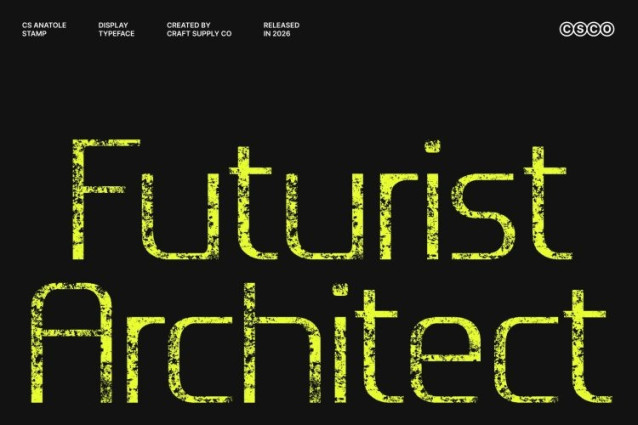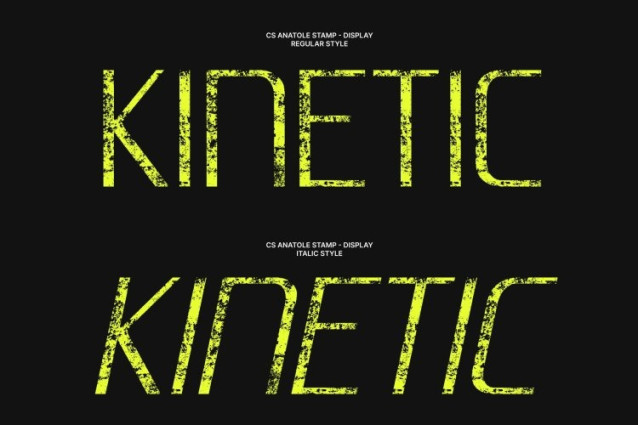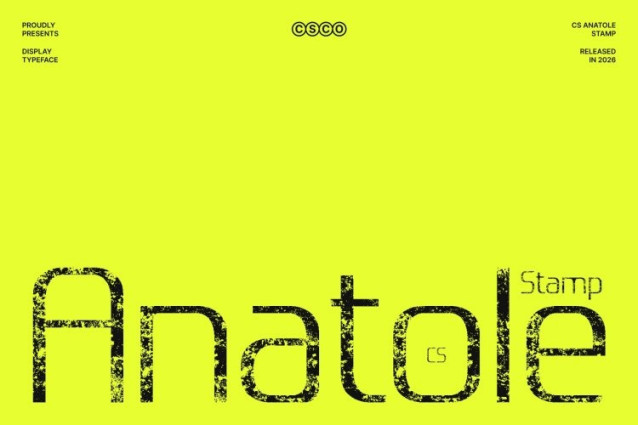
CS Anatole Stamp Font
CS Anatole Stamp Font This is a modern futuristic display font designed to command attention through sleek geometry and contemporary energy, enhanced by a distinctive stamp texture. Its clean sans serif structure reflects precision and progress, while the stamped finish introduces subtle vintage depth, adding warmth and expressive character to its high-tech aesthetic.
Sharp Geometry with Textured Refinement
Each letterform is crafted with balanced proportions, streamlined shapes, and confident spacing. The futuristic minimalism is enriched by a tactile stamp effect that softens the precision with artistic imperfection. This contrast creates a dynamic visual presence that feels both innovative and authentically crafted.
Bold Impact with Industrial Edge
Perfect for logos, posters, headlines, and strong brand statements, this font delivers a confident and forward-looking identity. The fusion of clean structure and textured detail ensures your designs feel striking, modern, and visually layered rather than flat or sterile.
Versatile for Modern and Experimental Design
From tech branding and digital interfaces to editorial layouts and conceptual artwork, this font adapts effortlessly. Its combination of futuristic clarity and vintage stamp character makes it ideal for designers seeking innovation with personality and depth.